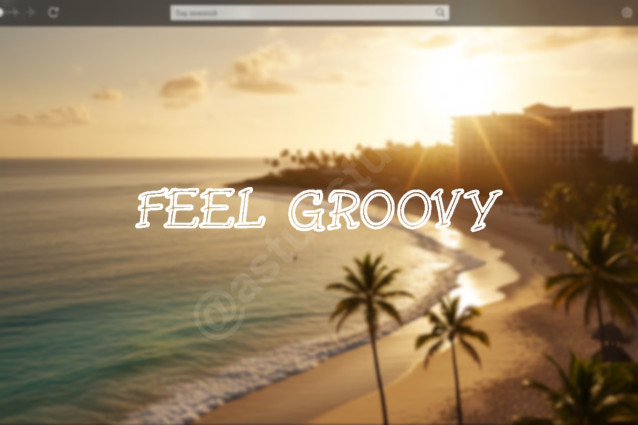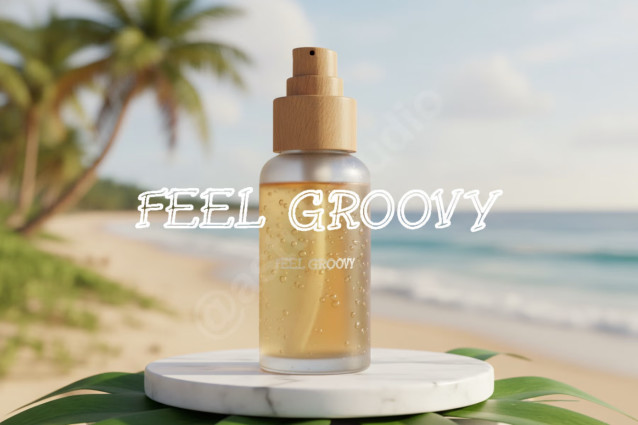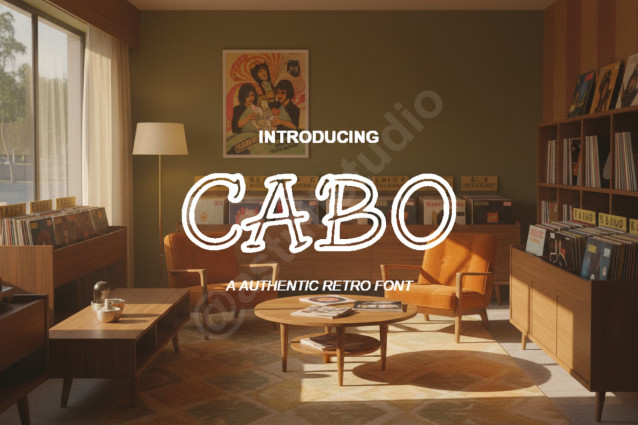
Cabo Modern Luxury Branding Serif Font
Introducing Cabo, a meticulously crafted serif typeface designed for the discerning creative. Cabo embodies timeless elegance with a modern sensibility, featuring delicate curves and confident strokes. It is the definitive choice for projects demanding sophistication and high visual impact, instantly elevating your brand narrative to a luxury status.
APPLICATIONS Cabo is tailor-made for high-end creative needs including luxury product branding, premium packaging, sophisticated magazine layouts, editorial headers, bespoke wedding invitations, and compelling social media campaigns.
Optimized Use Cases
• Luxury Branding and Identity: Perfect for high-end fashion and lifestyle brands.
• Modern Logo Design: Clean lines ensure legibility and impact.
• Editorial Layouts: Ideal for magazine spreads and professional typography.
• Minimalist Social Media Graphics: Elevate your digital presence with a polished look.
• High-End Packaging and Stationery: Adds a touch of class to physical products.
• Professional Website Headers: Optimized for clear and engaging web design.